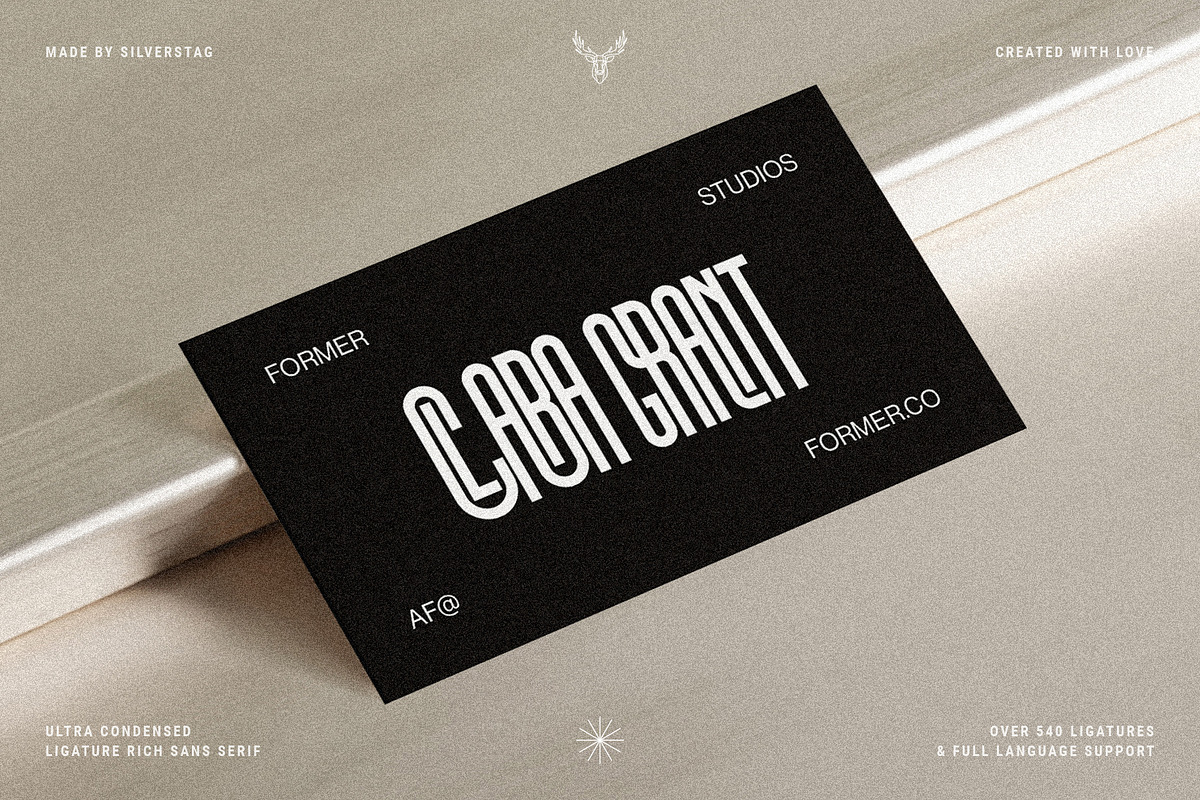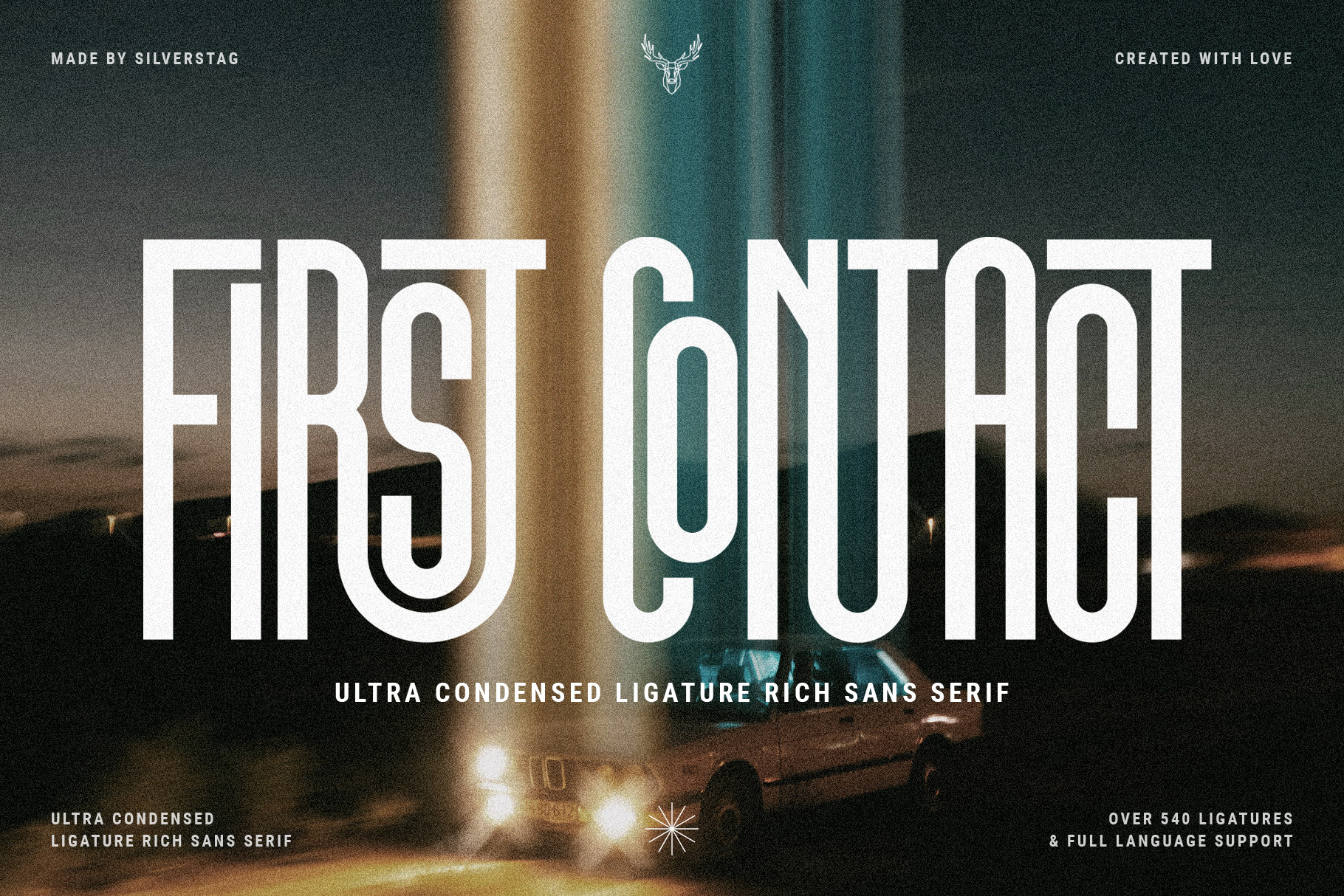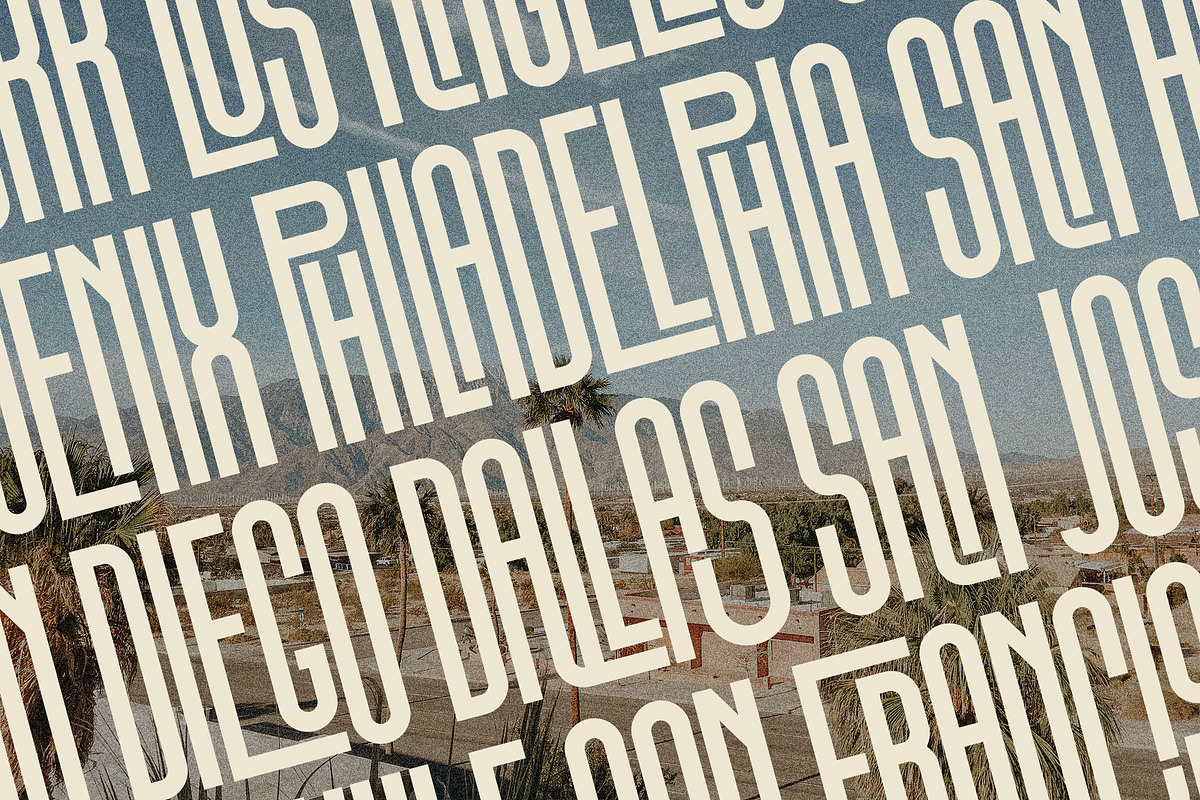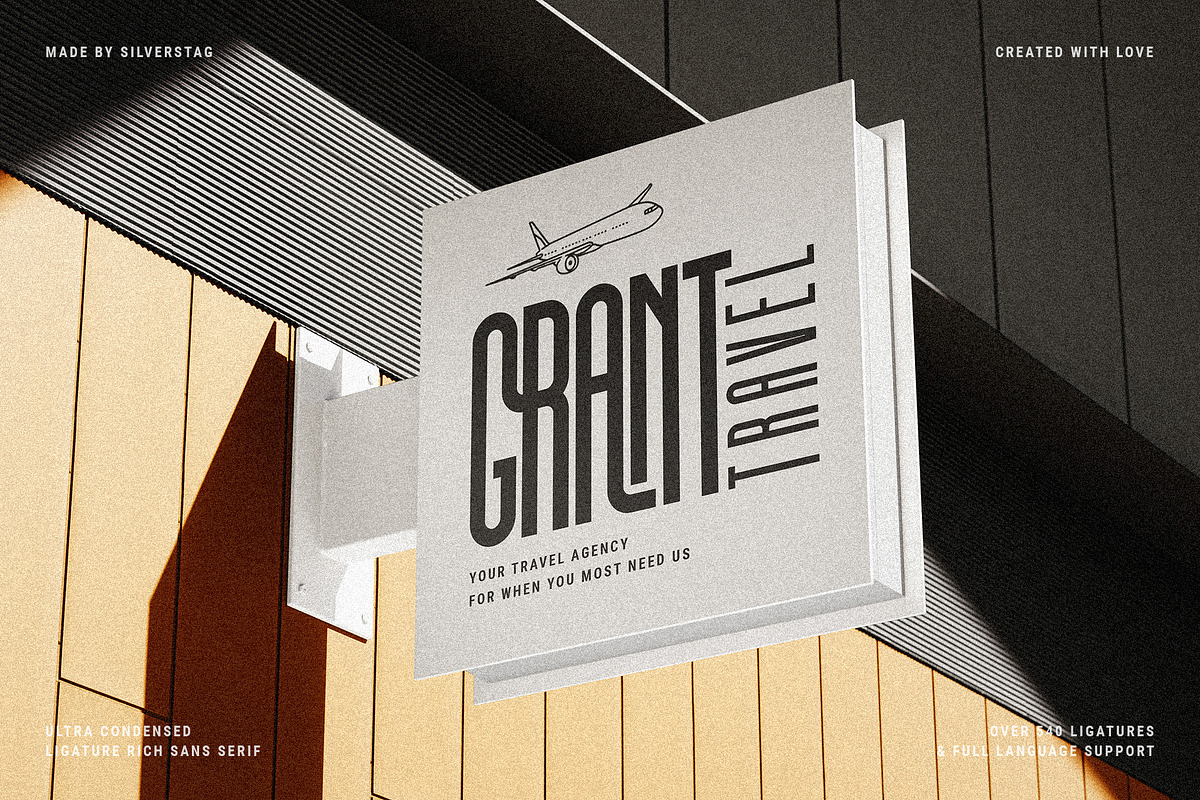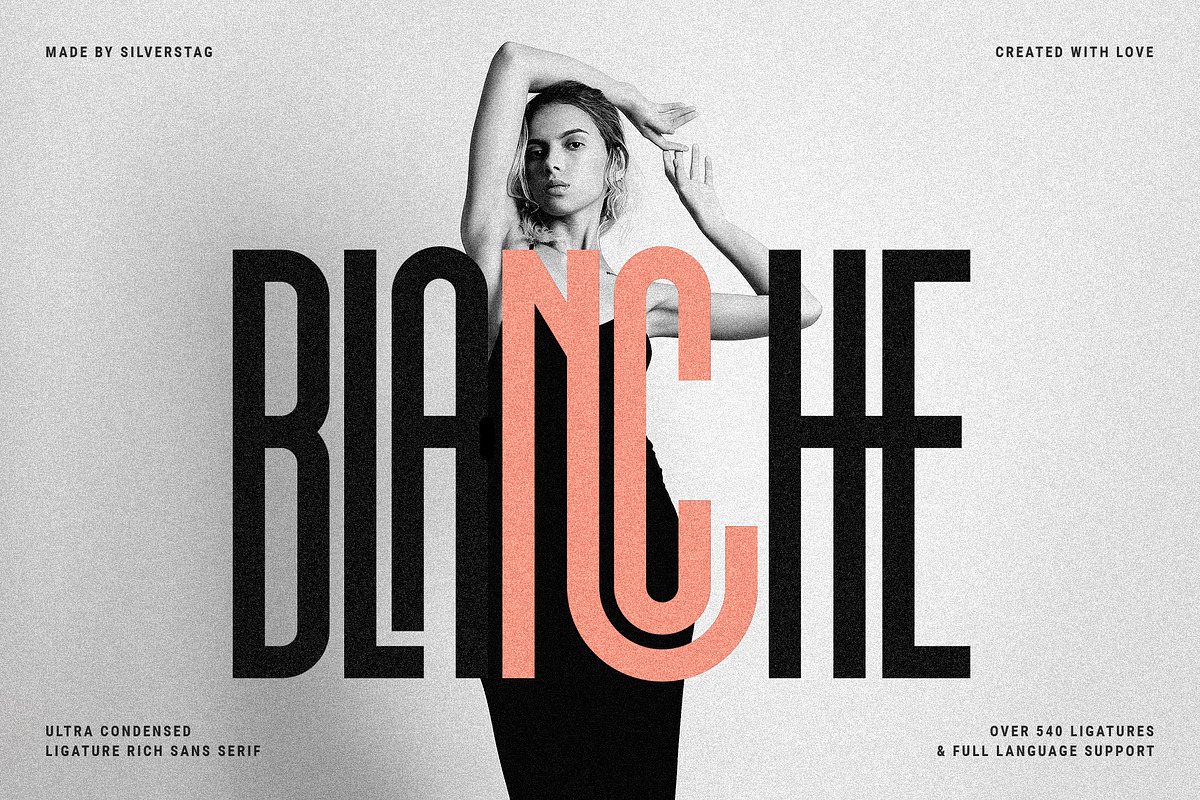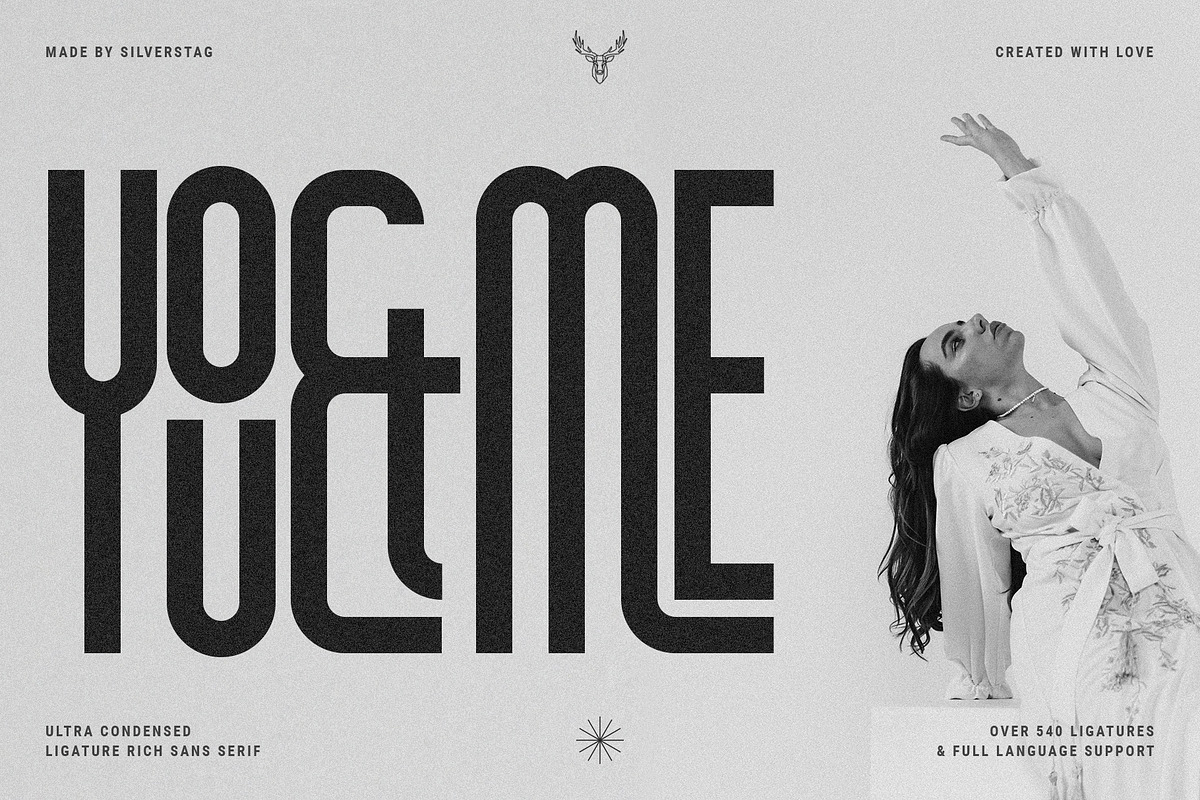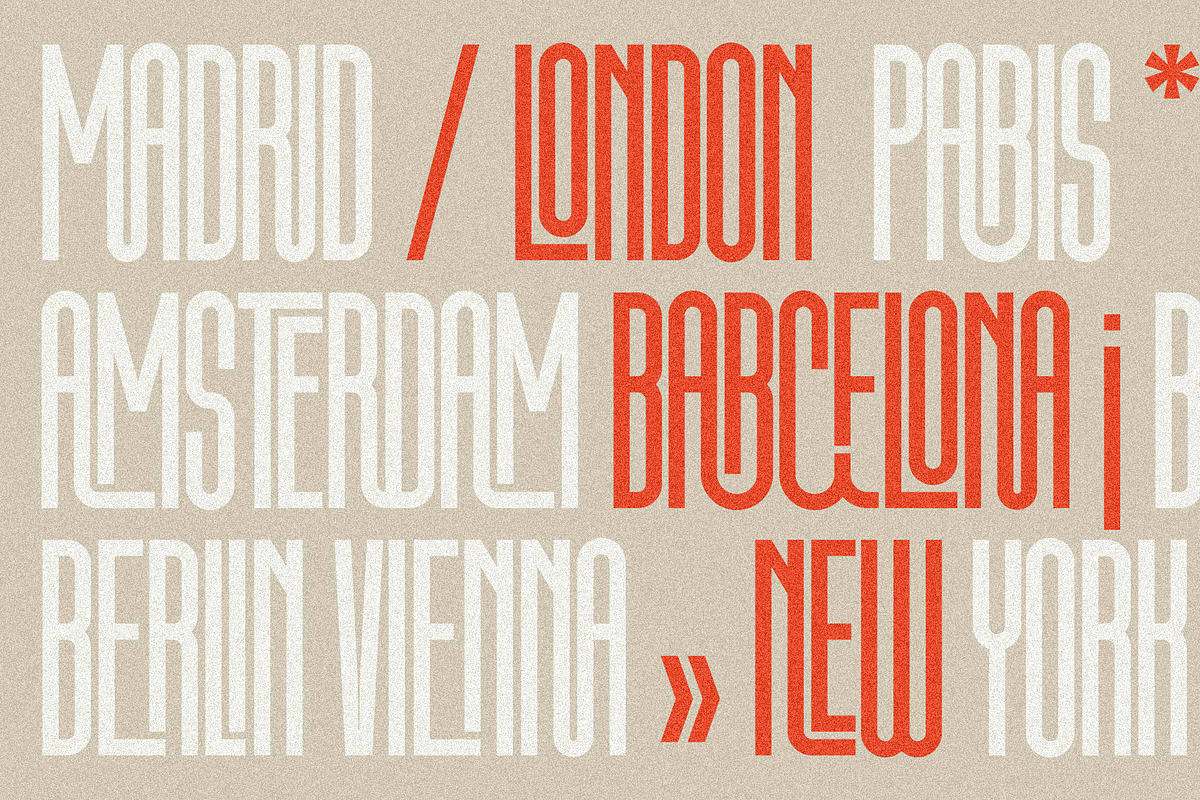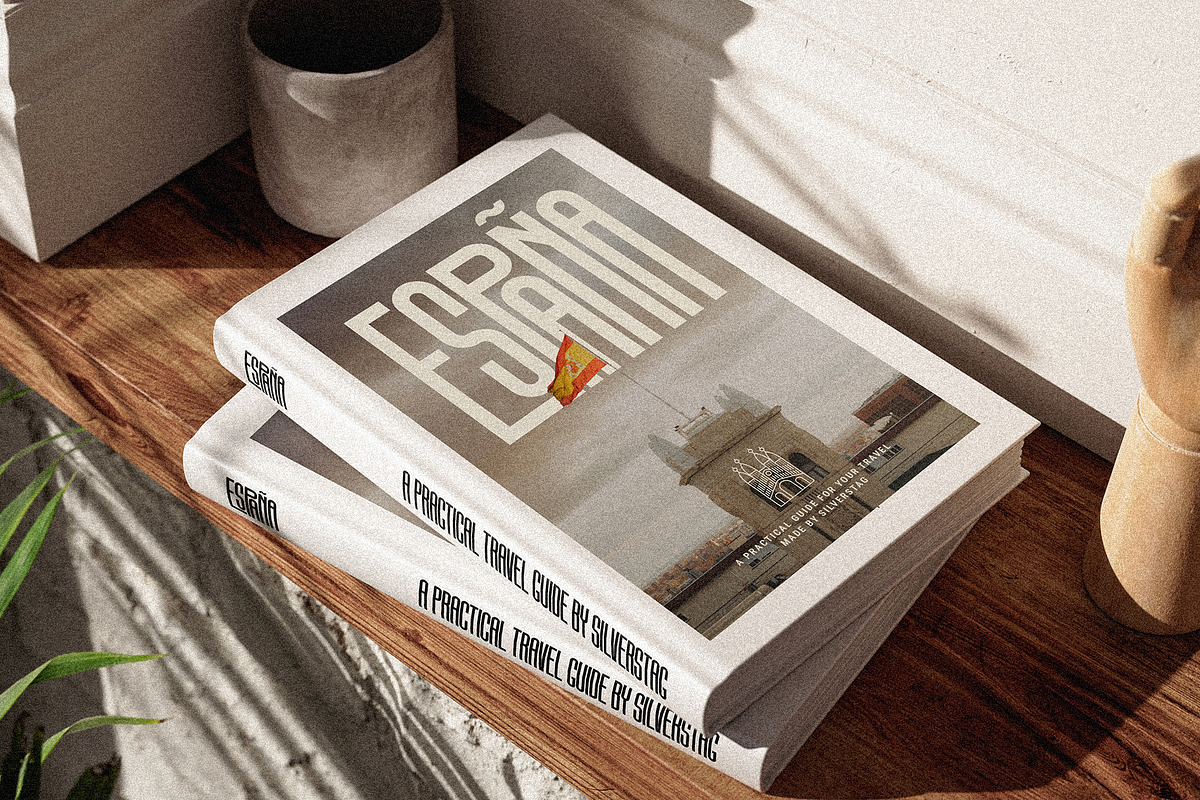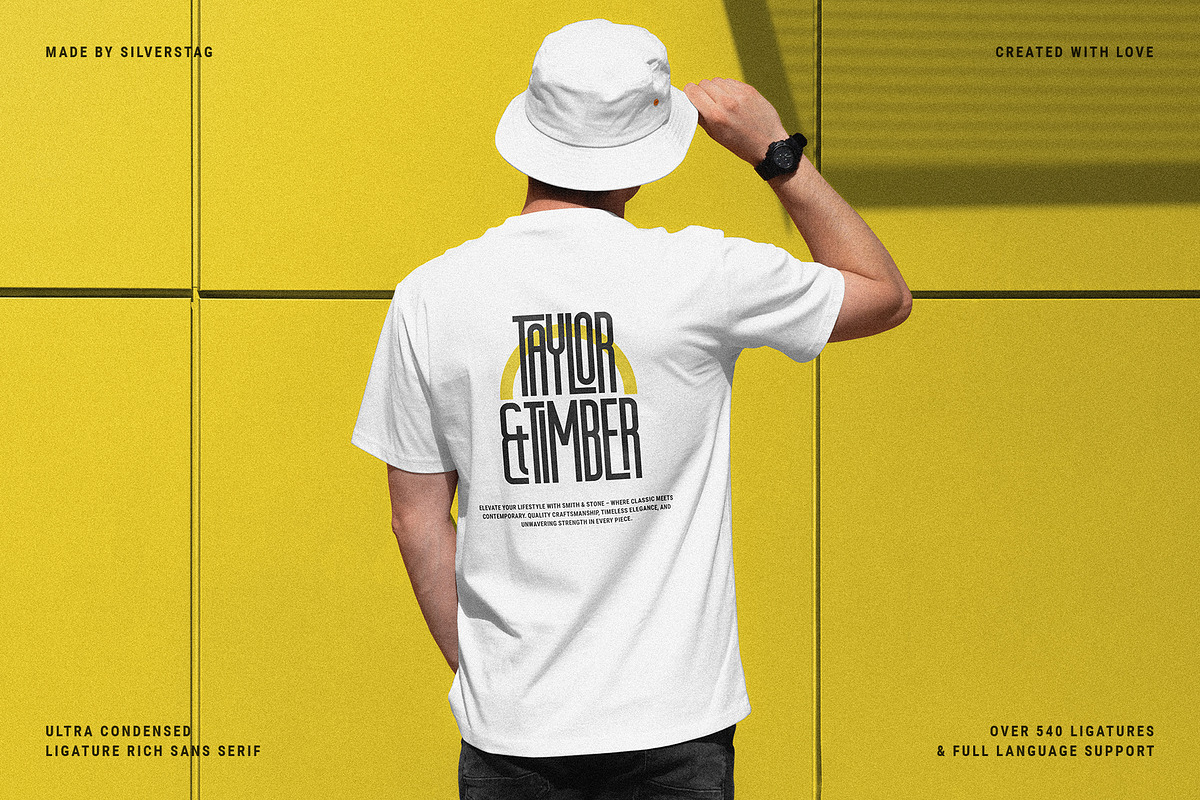
First Contact - Ultra Condensed Font
I am First Contact, a super ultra condensed all caps font with support for over 90 languages and over 540 ligatures. I am a cutting-edge font that is both cool and chic, yet still personal. I am perfect for a wide range of design projects, from logos and branding to headlines and posters.
I am the future of your typography. I am the font that will take your designs to the next level. I am bold, I am confident, and I am here to make a statement. I am not like other fonts. I am not afraid to be different. I am unapologetically myself.
I am First Contact, and I am here to shake things up. I am the perfect font for anyone who wants to stand out from the crowd. I am the font for the bold, the brave, and the innovative.
I am First Contact, and I am the font for the cool kids. I am the font for the trendsetters. I am the font for the people who want to be ahead of the curve.
I am First Contact, and I am here to help you create something truly unique. I am more than just a font. I am a movement. I am a call to action. I am a challenge to be different. So what are you waiting for? Use me today!
- Over 540 ligatures and alternate letters